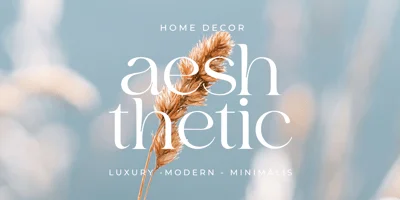
Bilgie Font
Bilgie Font is perfect for educational institutions, knowledge-sharing platforms, research organizations, academic publications, learning applications, information design projects, intellectual branding, scholarly communications, and any project requiring typography with wisdom-based aesthetics and educational sophistication.
What makes Bilgie Font exciting is its intellectual clarity that captures the essence of knowledge accumulation and wisdom transmission with thoughtfully designed letterforms that reflect the structured nature of learning and the organized beauty of information systems. This distinctive typeface embodies the fundamental principles of education with balanced proportions and clear geometry that facilitate understanding while maintaining scholarly elegance. The font's educational character and intellectual appeal make it perfect for projects dedicated to learning, knowledge sharing, and the noble pursuit of wisdom and understanding.
The Bilgie Font family includes light, regular, and bold weights, featuring complete uppercase and lowercase alphabets, numerals, punctuation marks, and education-inspired design elements. The font maintains consistent scholarly elegance throughout all weights while ensuring optimal readability for both informative headlines and extensive educational content in academic and learning contexts.
Whether you're designing for universities, creating educational software interfaces, or developing knowledge-based branding with academic aesthetics, Bilgie Font delivers unmatched intellectual sophistication and educational clarity to your projects. This remarkable typeface transforms ordinary text into powerful vehicles of knowledge that support learning and intellectual growth through exceptional typography. The font's scholarly character makes it ideal for schools, research institutions, and educational technology companies. Download this exceptional font today and bring the noble spirit of education to your design projects with authentic academic sophistication and knowledge-centered elegance.